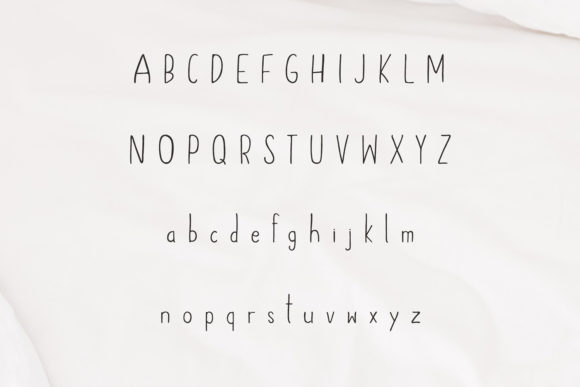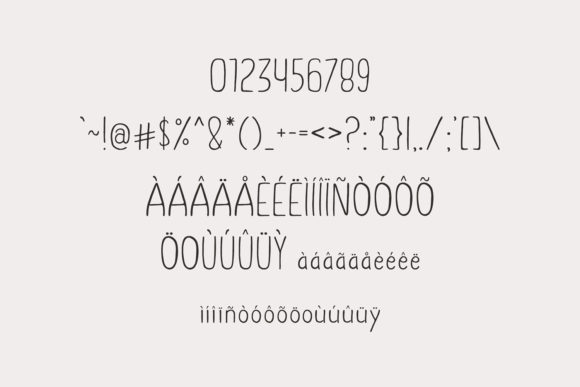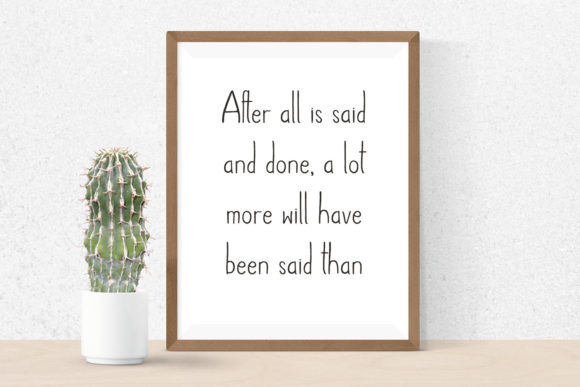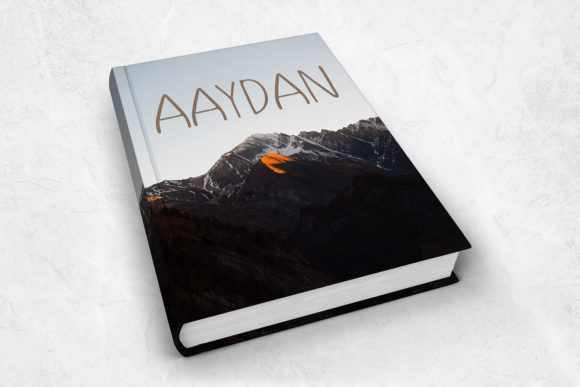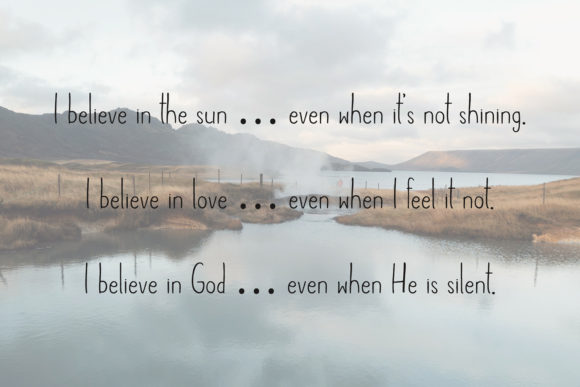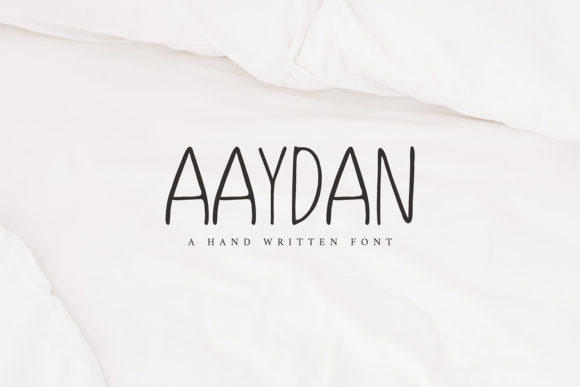
The Aaydan Font: A Cute and Simple Lettered Handwritten Font
I’ll never forget the moment I stumbled upon the Aaydan font while working on a project for a client’s children’s book. I had been searching for the perfect font for hours, trying out different styles and weights, but nothing seemed quite right. The book needed a playful, yet elegant feel, and I was starting to get frustrated. That’s when I saw Aaydan – a cute and simple lettered handwritten font that immediately caught my eye. ✨
As I experimented with Aaydan, I realized that it was exactly what I needed. It was versatile, easy to read, and had a certain charm that elevated my design. In this article, I’ll share my honest review of Aaydan, provide a practical guide on how to use it, and explore similar fonts and alternatives.
- ✨ Playful yet elegant feel: Aaydan strikes the perfect balance between playfulness and sophistication, making it suitable for a wide range of projects.
- ✅ Easy to read: The font is clear and legible, even at smaller sizes, which is essential for body text.
- 💕 Cute and charming: Aaydan has a unique personality that adds a touch of warmth and personality to any design.
While Aaydan is an excellent font, it’s not perfect. ⚠️ One limitation is that it may not be the best choice for very formal or professional projects, as it has a distinctly playful feel. Additionally, some users may find that the font is too casual or informal for certain applications.
🤔 Another thing to consider is that Aaydan may not have as many variations or weights as some other fonts, which could limit its flexibility in certain design situations.
If you like Aaydan, you may also enjoy the following fonts:
- Sacramento: A beautiful, elegant script font with a similar feel to Aaydan. Use it for projects that require a more formal, sophisticated look.
- Great Vibes: A fun, playful script font with a similar energy to Aaydan. Use it for projects that require a more casual, laid-back feel.
- Lobster: A elegant, refined script font with a similar sense of sophistication to Aaydan. Use it for projects that require a more formal, luxurious look.
- Pacifico: A beautiful, elegant script font with a similar feel to Aaydan. Use it for projects that require a more formal, sophisticated look.
Aaydan was designed with the intention of creating a font that was both playful and elegant. The designer, who wishes to remain anonymous, drew inspiration from classic handwritten fonts and infused them with a modern, whimsical feel. 🎨
The result is a font that is both versatile and charming, perfect for a wide range of creative projects.
Q: What type of projects is Aaydan best suited for?
A: Aaydan is a versatile font that can be used for a wide range of projects, from children’s books and educational materials to branding and advertising.
Q: Is Aaydan a difficult font to read?
A: No, Aaydan is a clear and legible font that is easy to read, even at smaller sizes.
Q: Can I use Aaydan in combination with other fonts?
A: Yes, Aaydan can be paired with other fonts to create a unique and visually appealing design. Experiment with different font combinations to find the perfect look for your project.